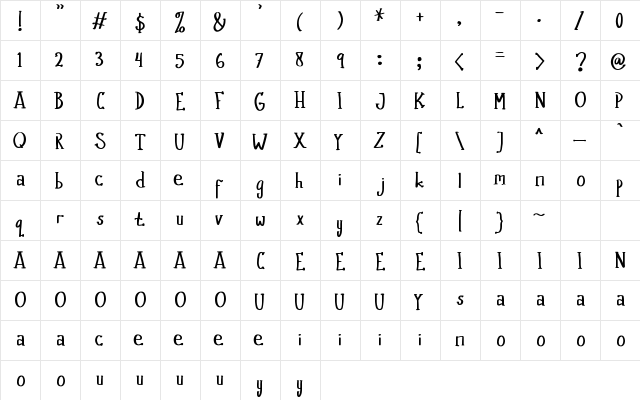
Old Jakarta Regular
| Designer | Letterain Studio |
Design Context for Old Jakarta Typeface
Old Jakarta is a composed and adaptable typeface that performs quietly and consistently across a wide range of design contexts.